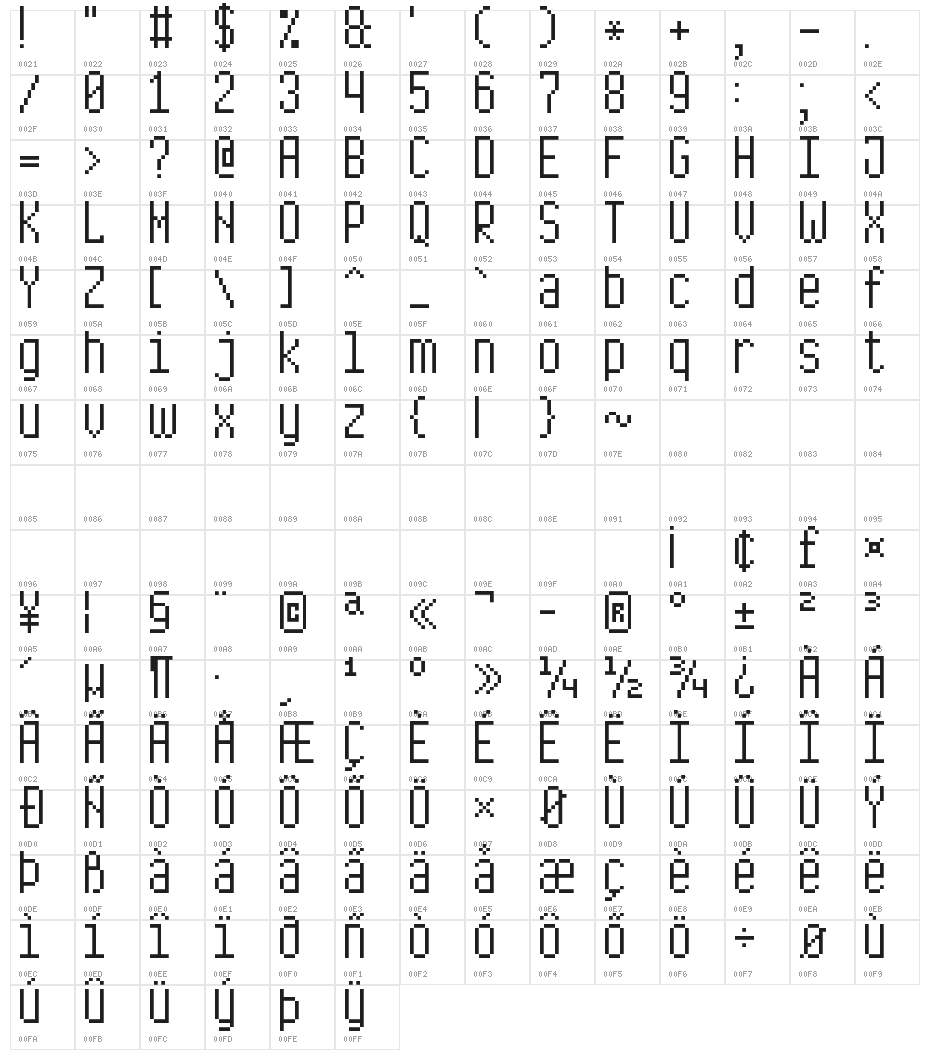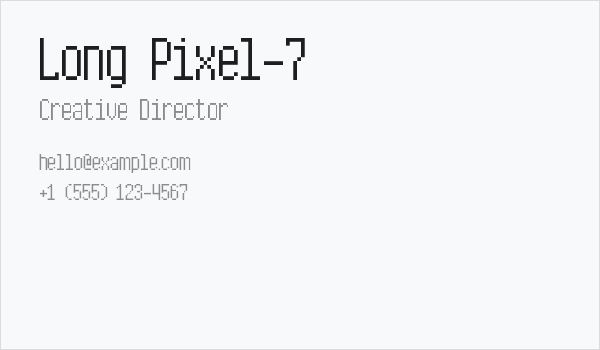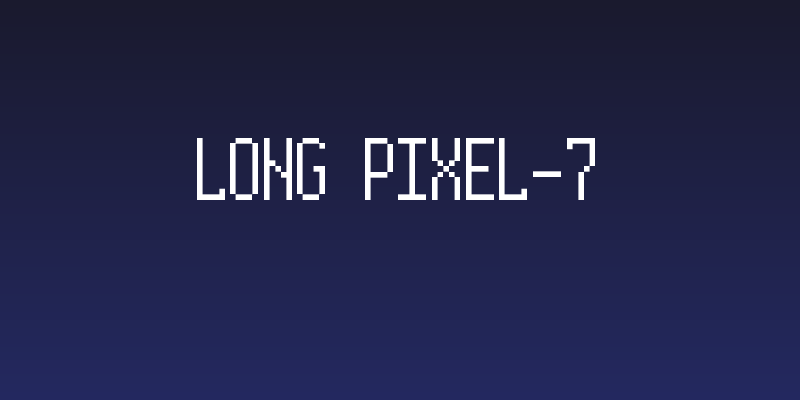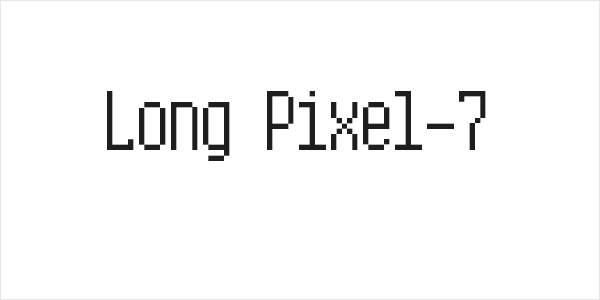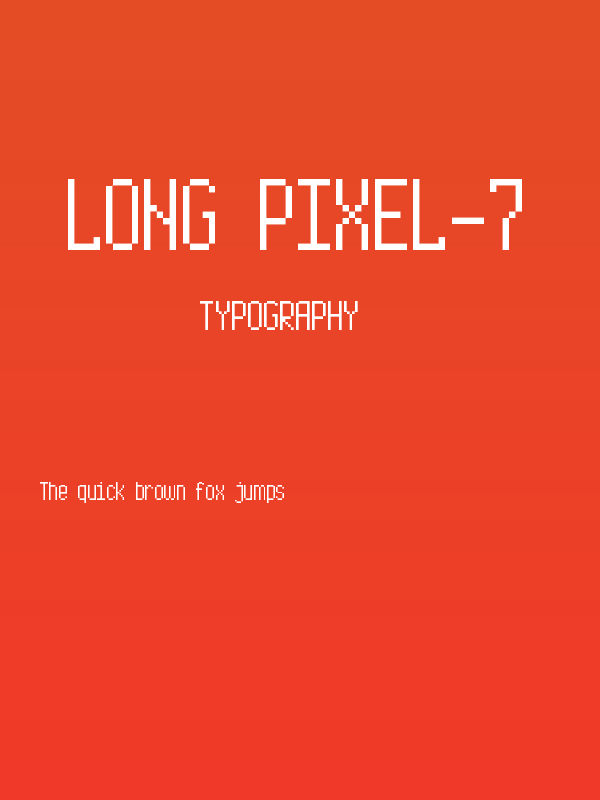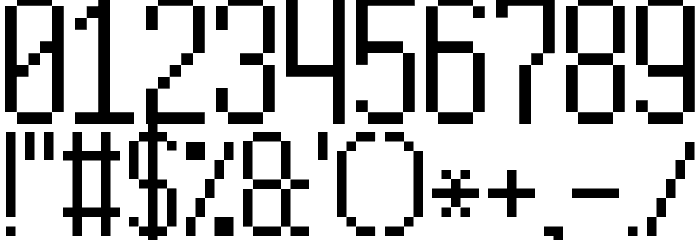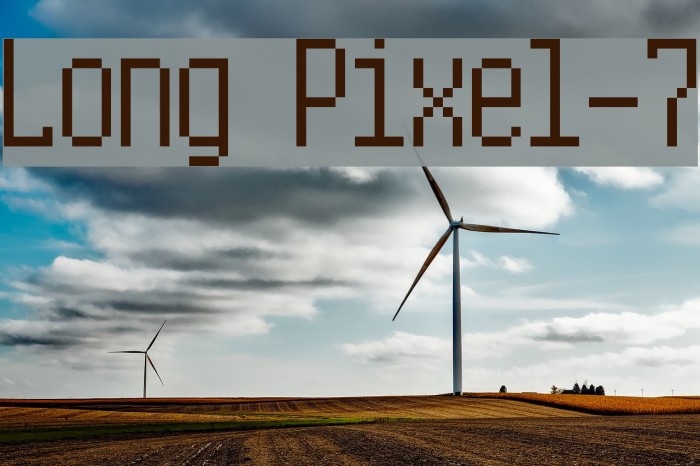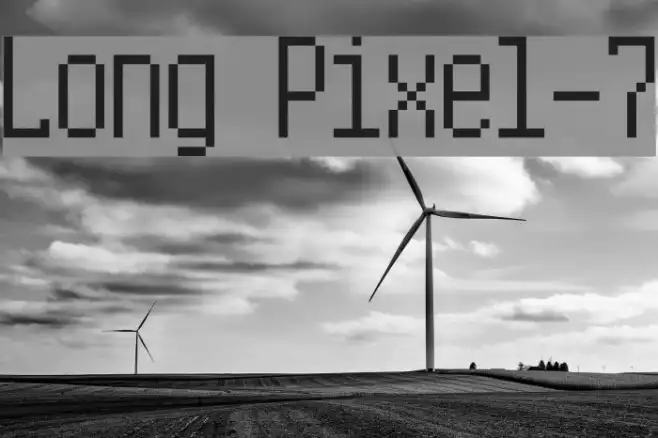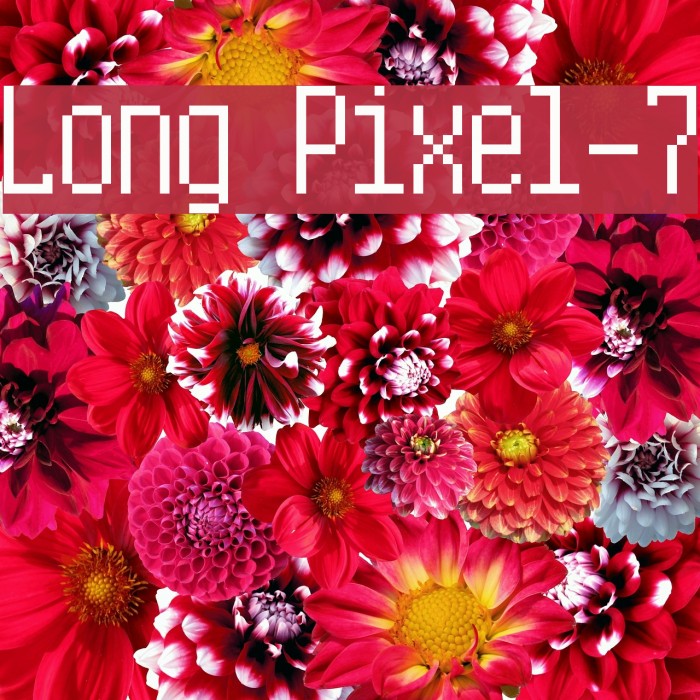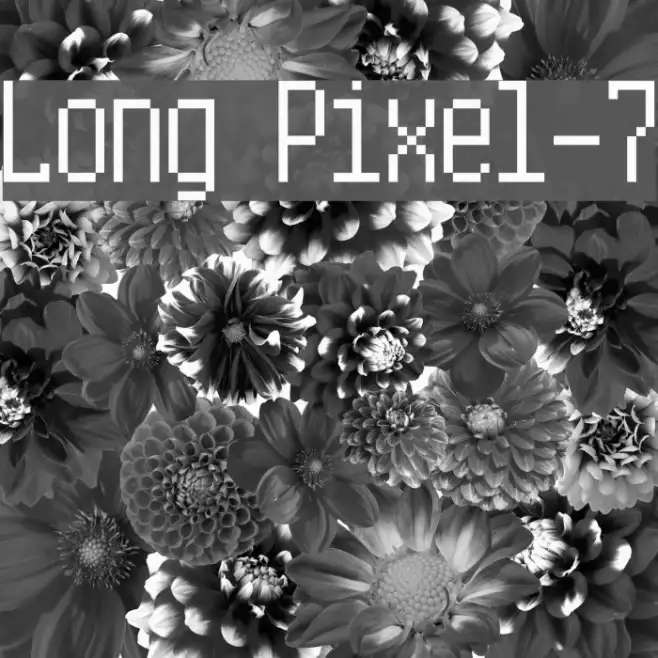
Long Pixel-7 Font
Long Pixel-7 Description
This font features a pixelated, blocky design reminiscent of early digital displays and retro video games. Each character is composed of a grid-like structure, giving it a distinctly digital and geometric appearance. The uniformity in stroke width across all characters contributes to a cohesive and consistent look. The uppercase and lowercase letters maintain a similar height, enhancing the font's compact and efficient style. Numbers and special characters are crafted with the same pixelated precision, ensuring readability and a cohesive aesthetic throughout. This font's nostalgic charm and straightforward design make it ideal for projects that aim to evoke a sense of retro digital nostalgia.
| Use Case | Logos, Headlines, Digital Art |
| Proposed Projects | Ideal for retro video game designs, digital art projects, tech-themed posters, and nostalgic branding. |